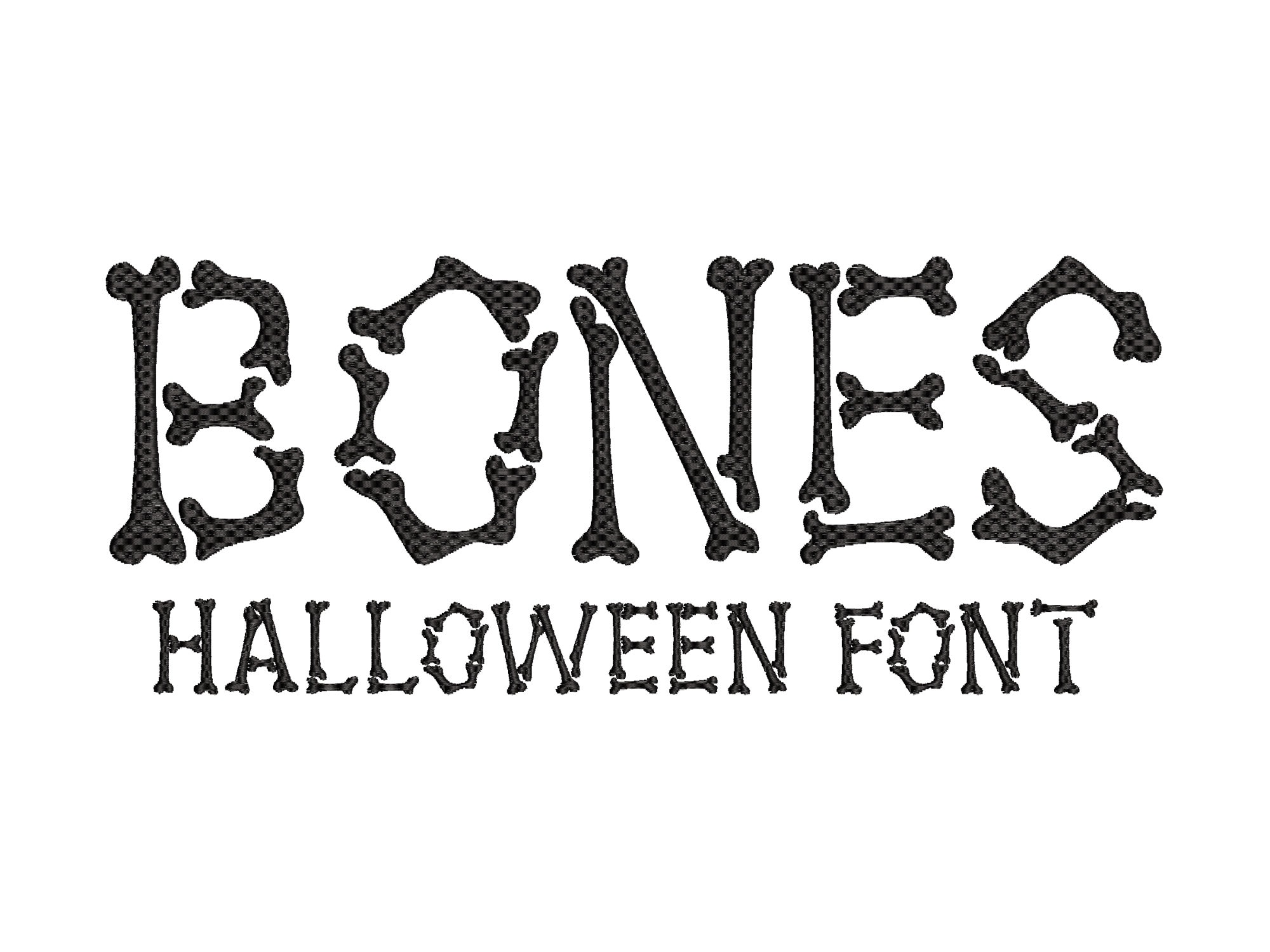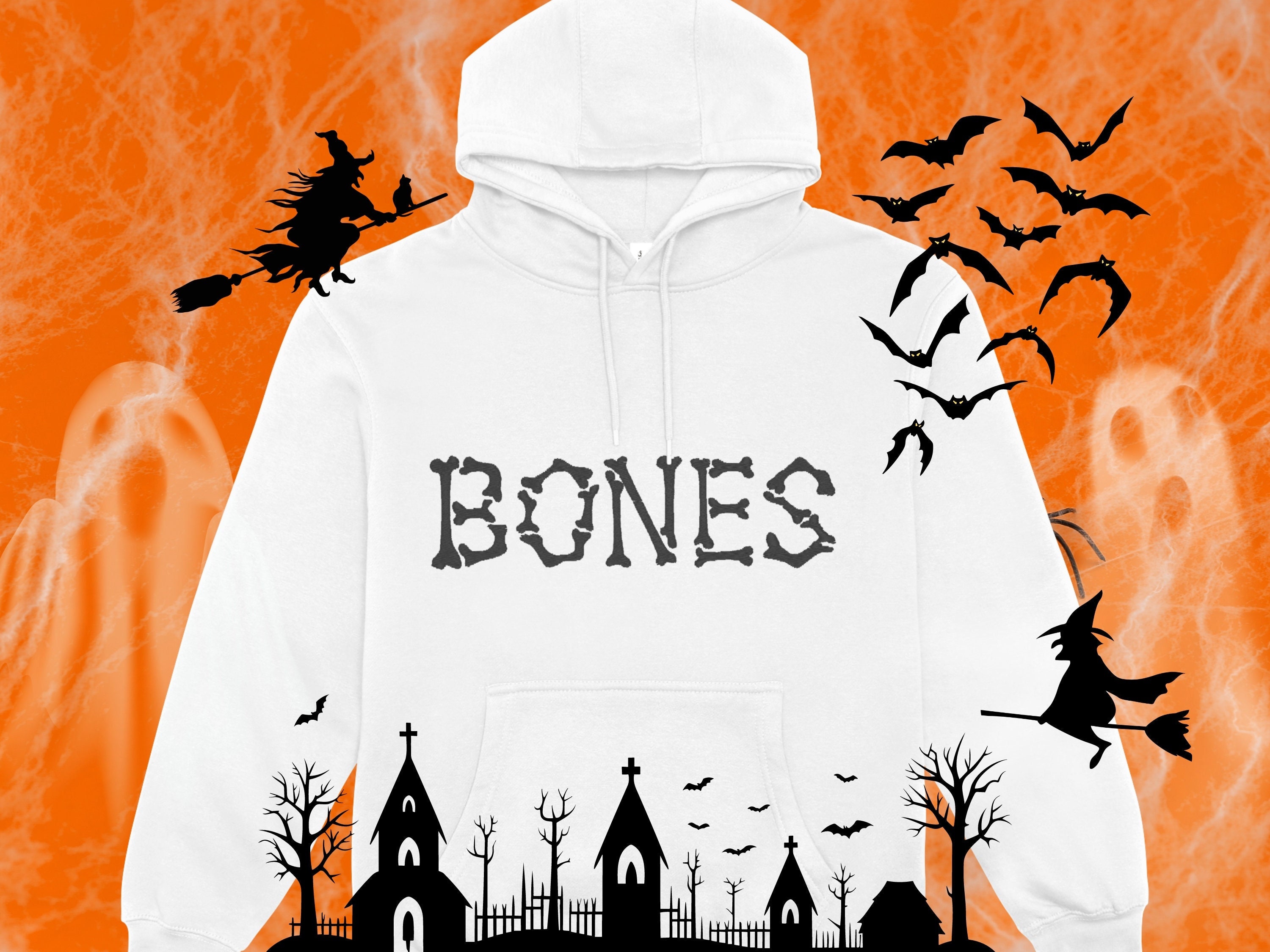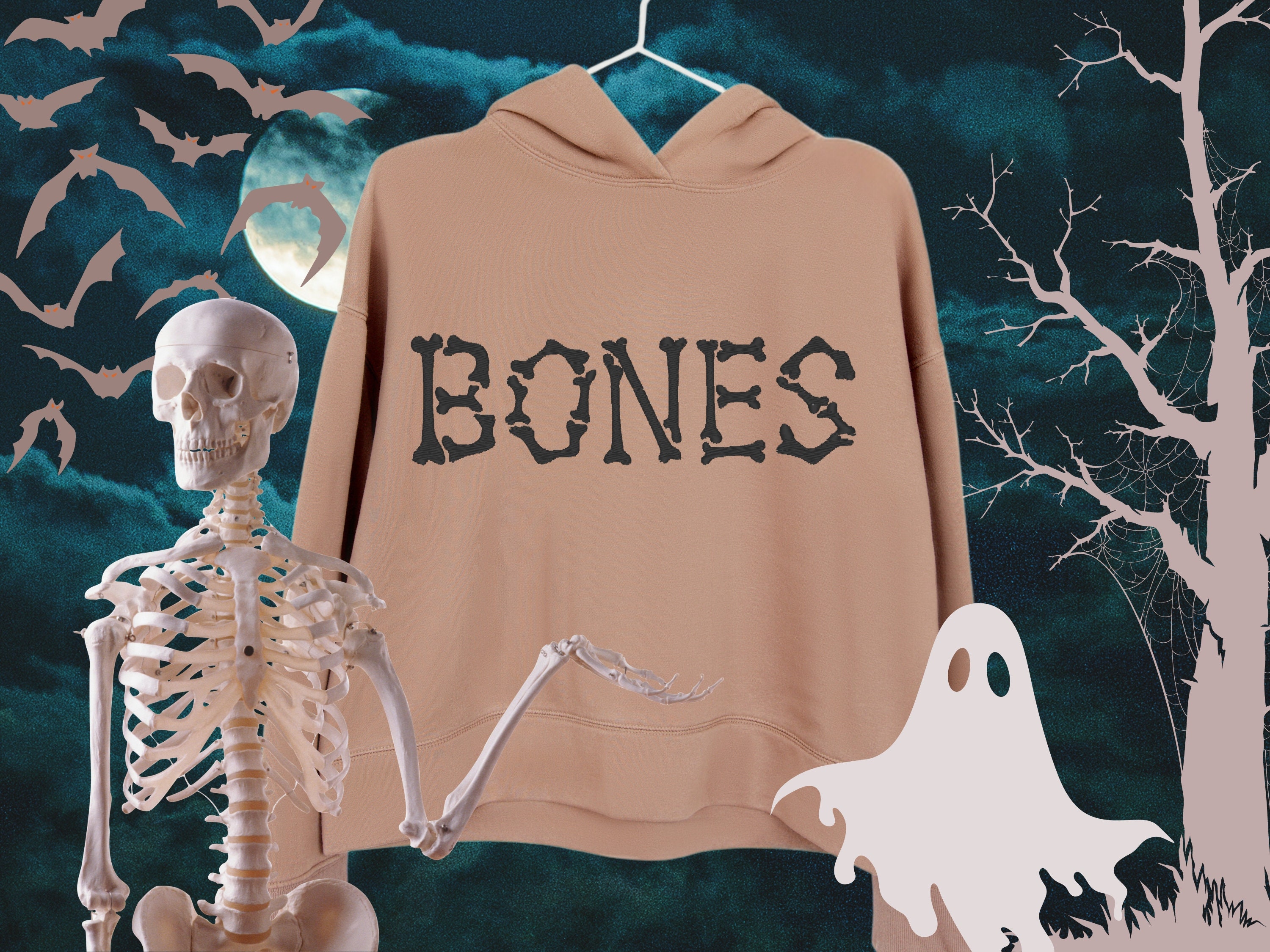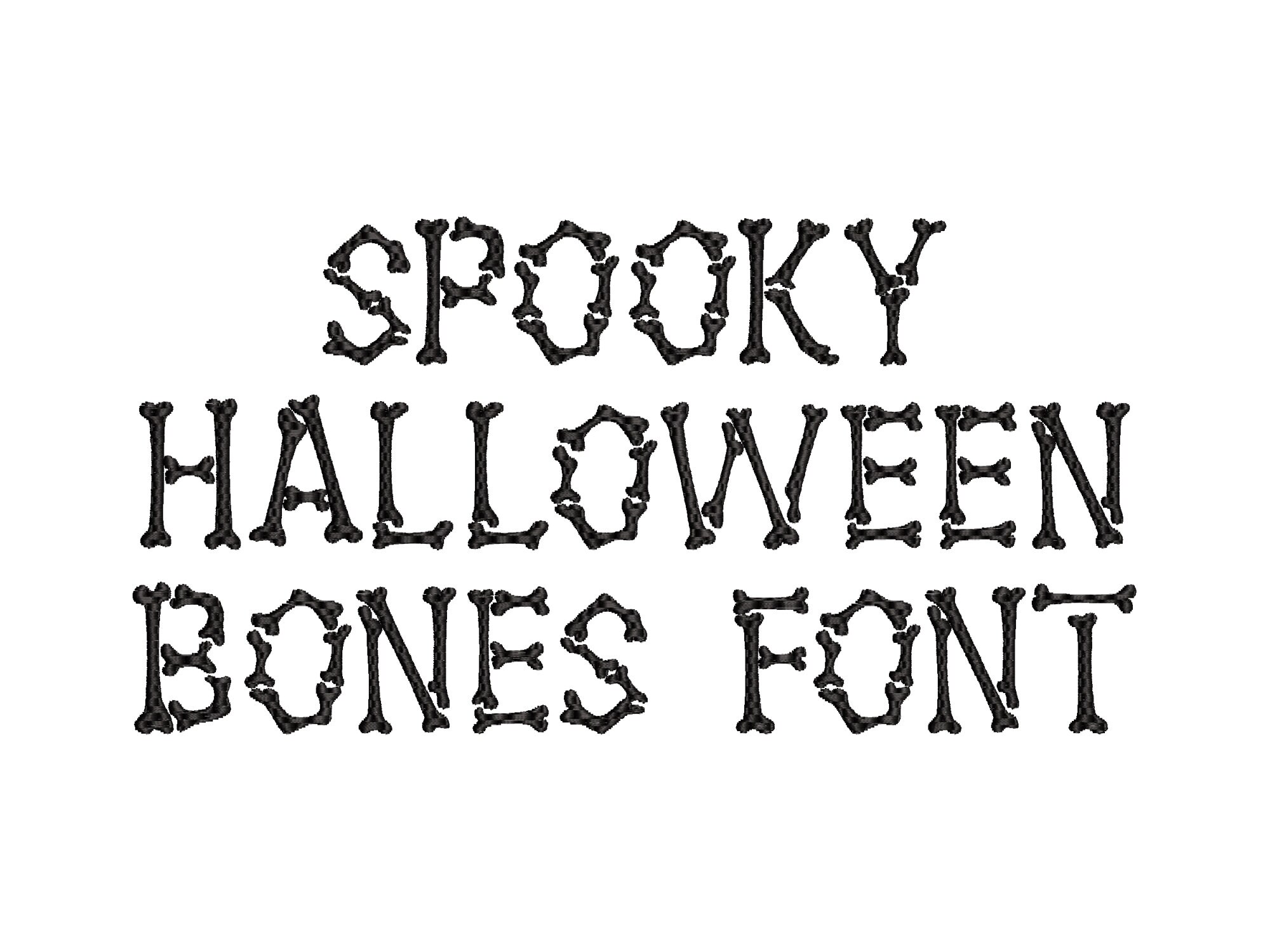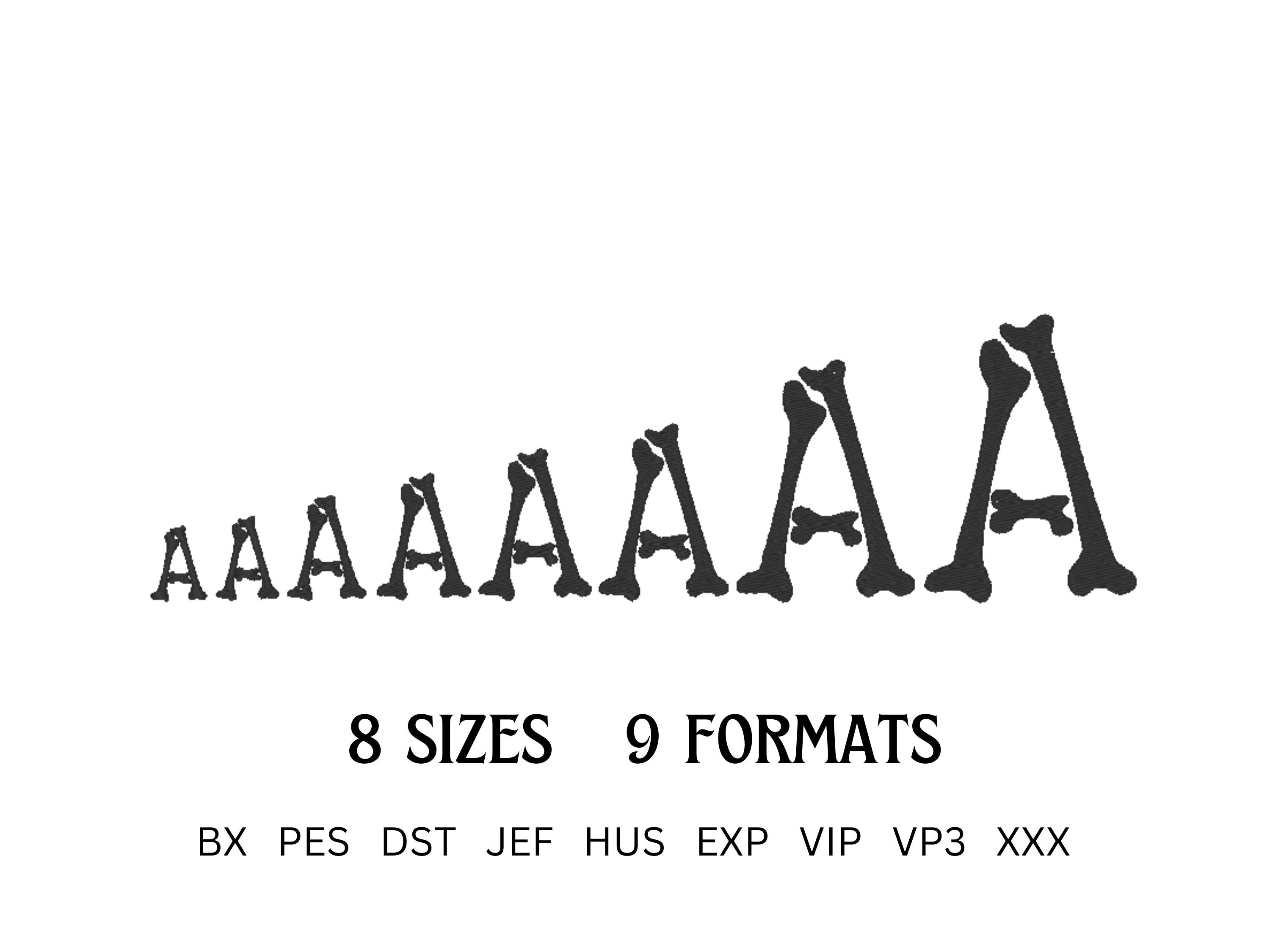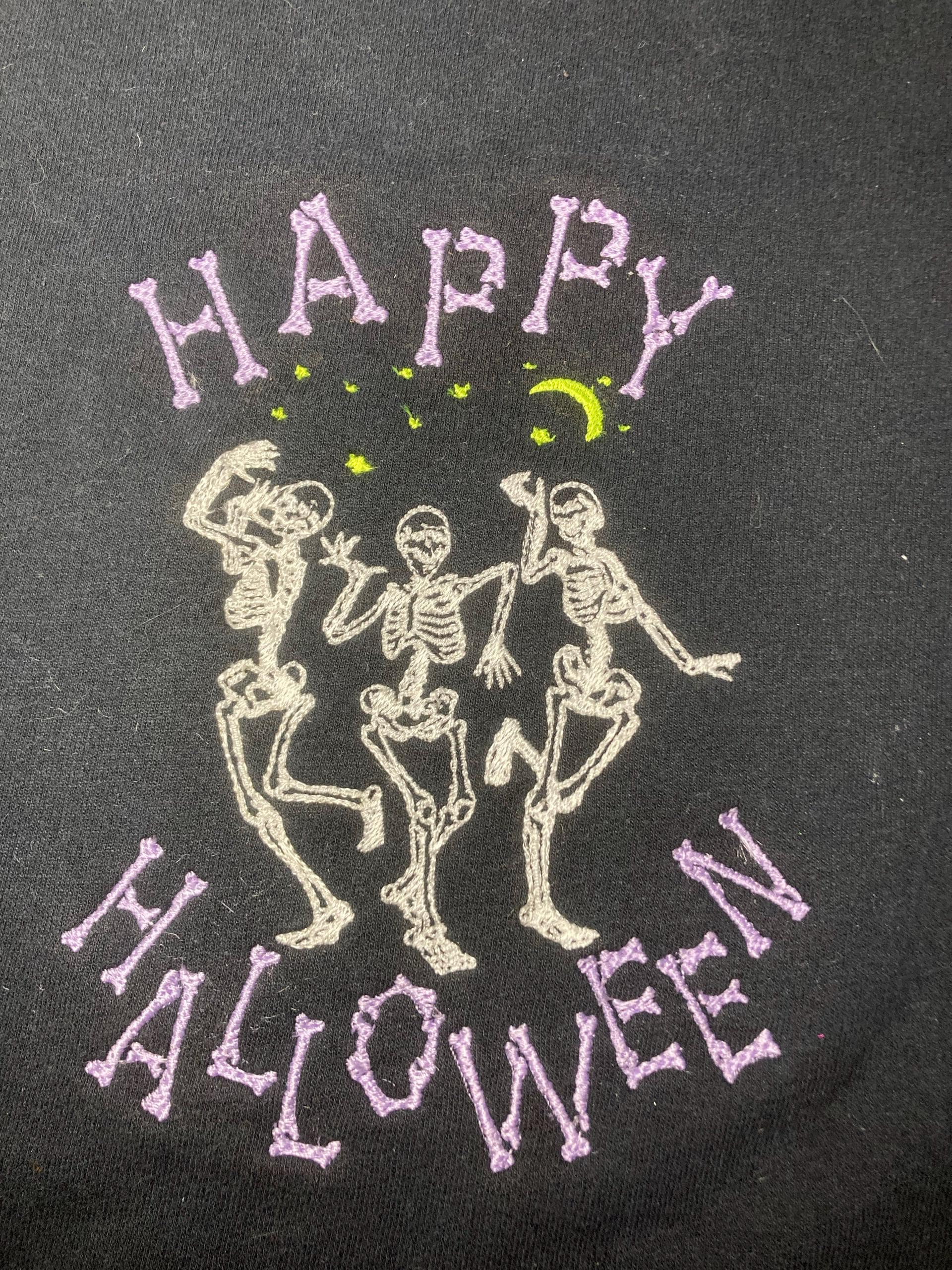
Halloween Spooky Bones Font scary alphabet letters from Skeleton Bones machine embroidery designs Boo font monogram sizes from 1 up to 3.7 inches, BX included
Whole alphabet A-Z uppercase letters.
Waffle texture fill stitch design.